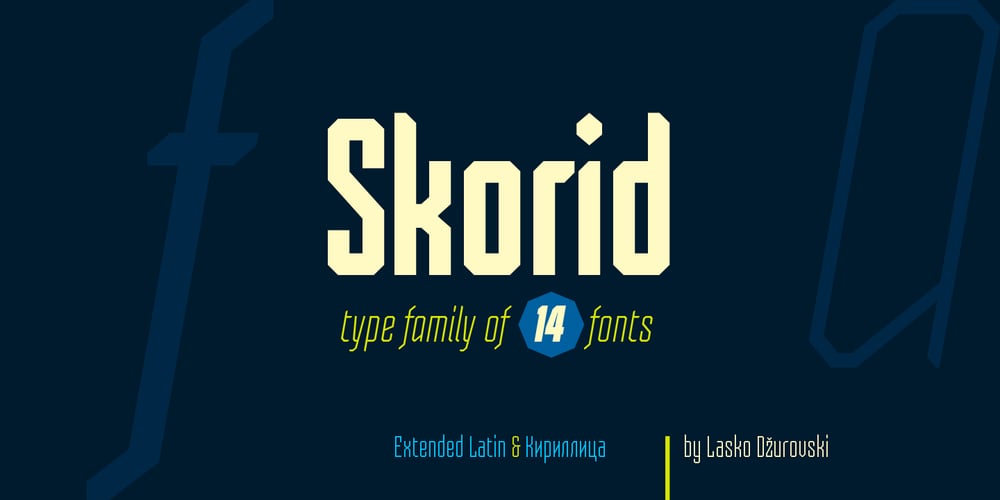
Skorid Font Family was designed by Lasko Dzurovski and published by Totem. Skorid contains 14 styles and family package options. Skorid is a geometric condensed sans serif font family, constructed only out of straight lines. Coming in 7 weights, regular and italic, from thin to black, you have a wide array of possibilities of using Skorid for any purpose you need. Skorid speaks around 70 languages, including Cyrillic. Contains a lot of alternative letters to boost your creativity.